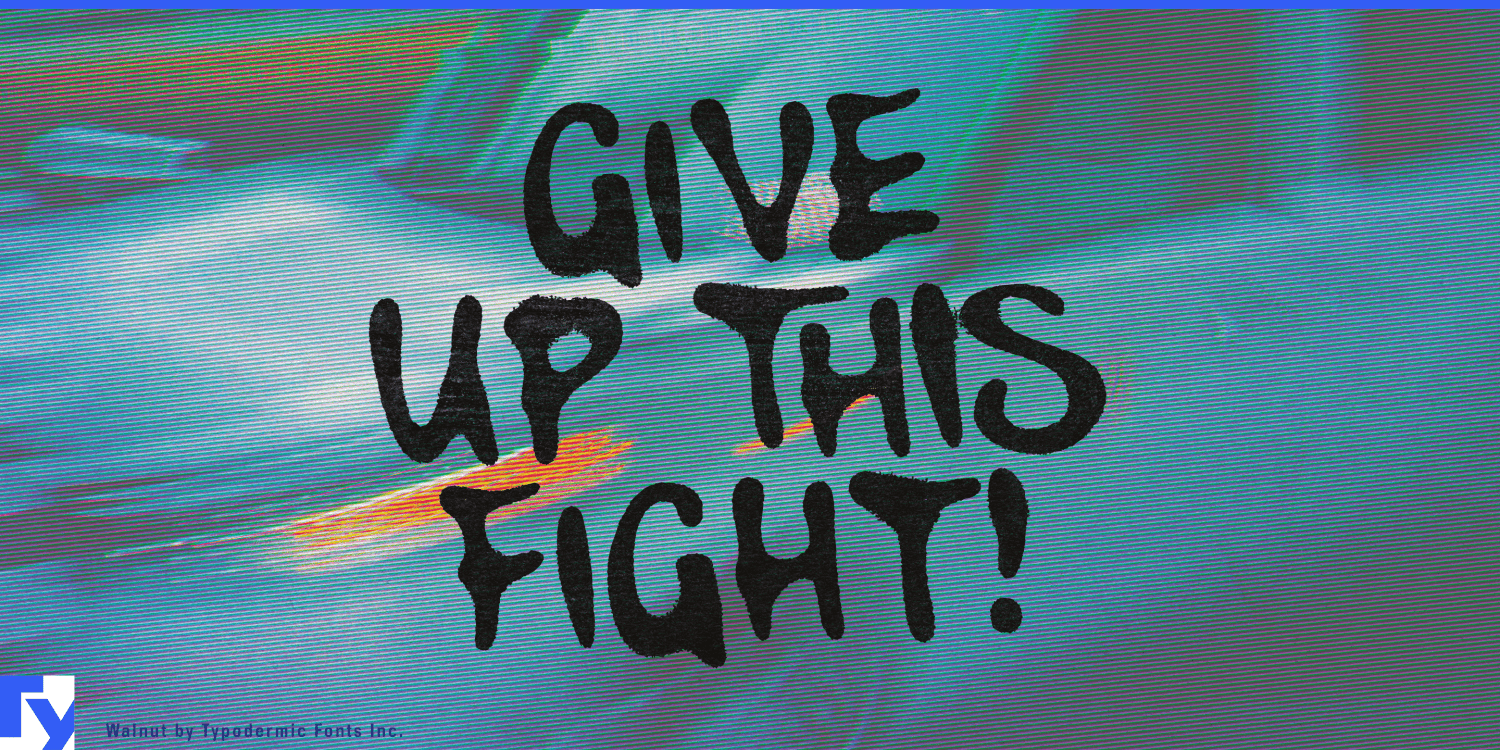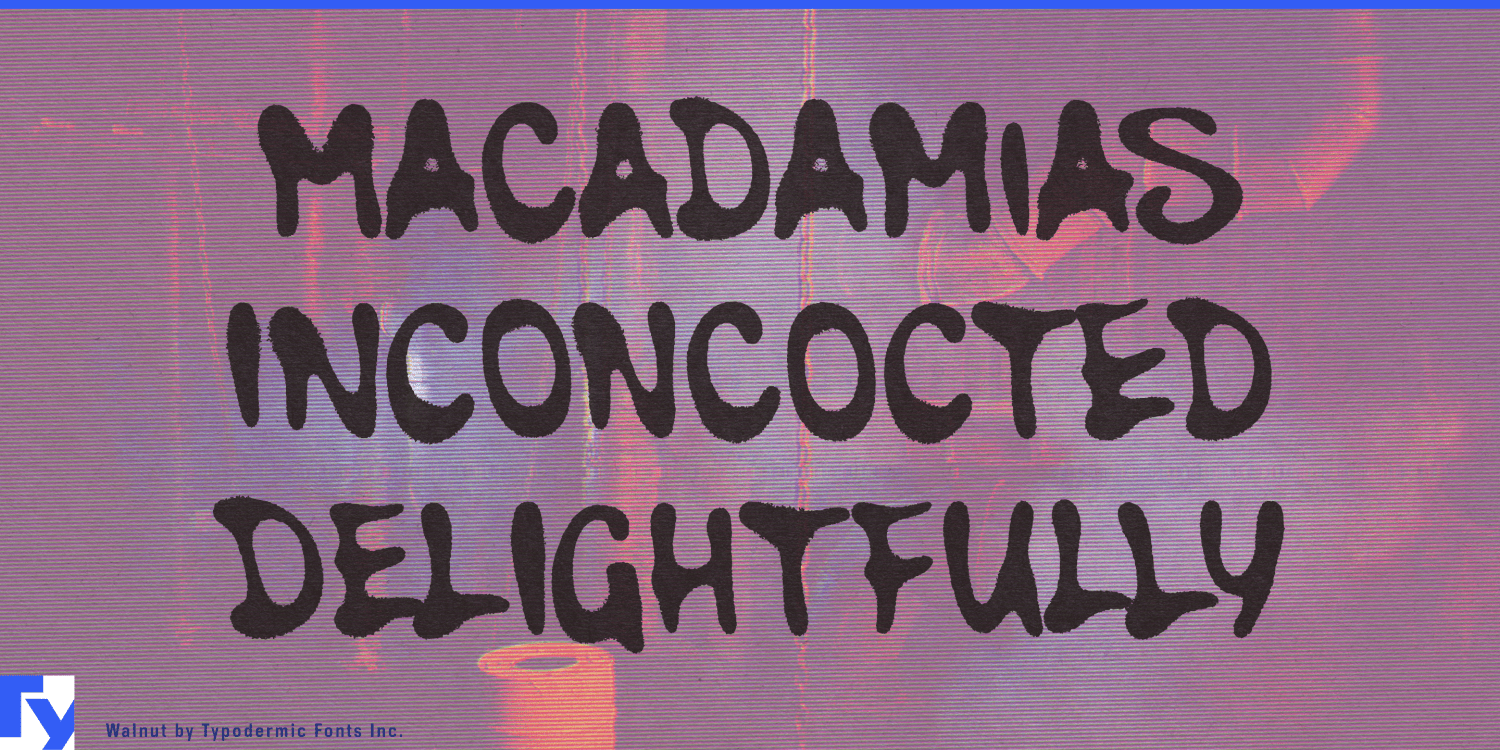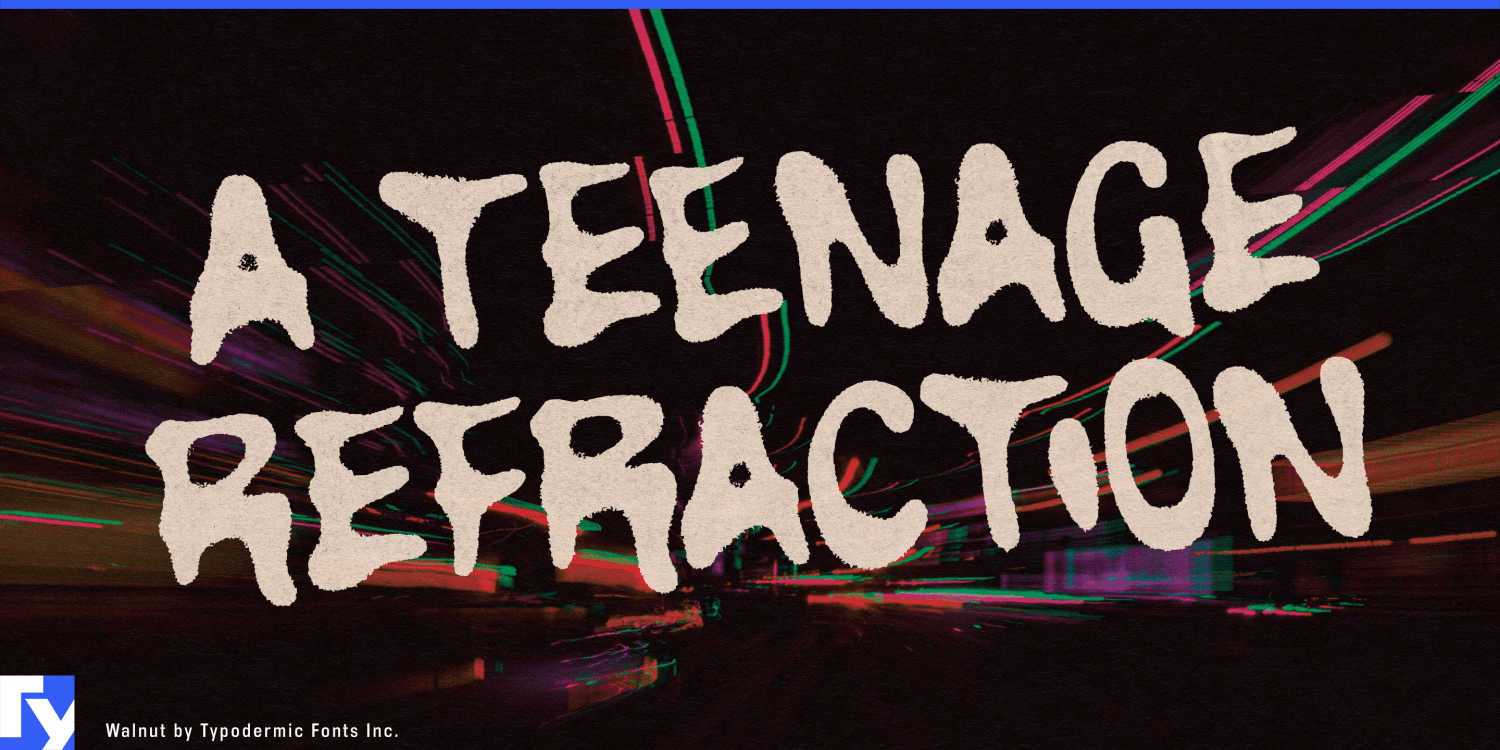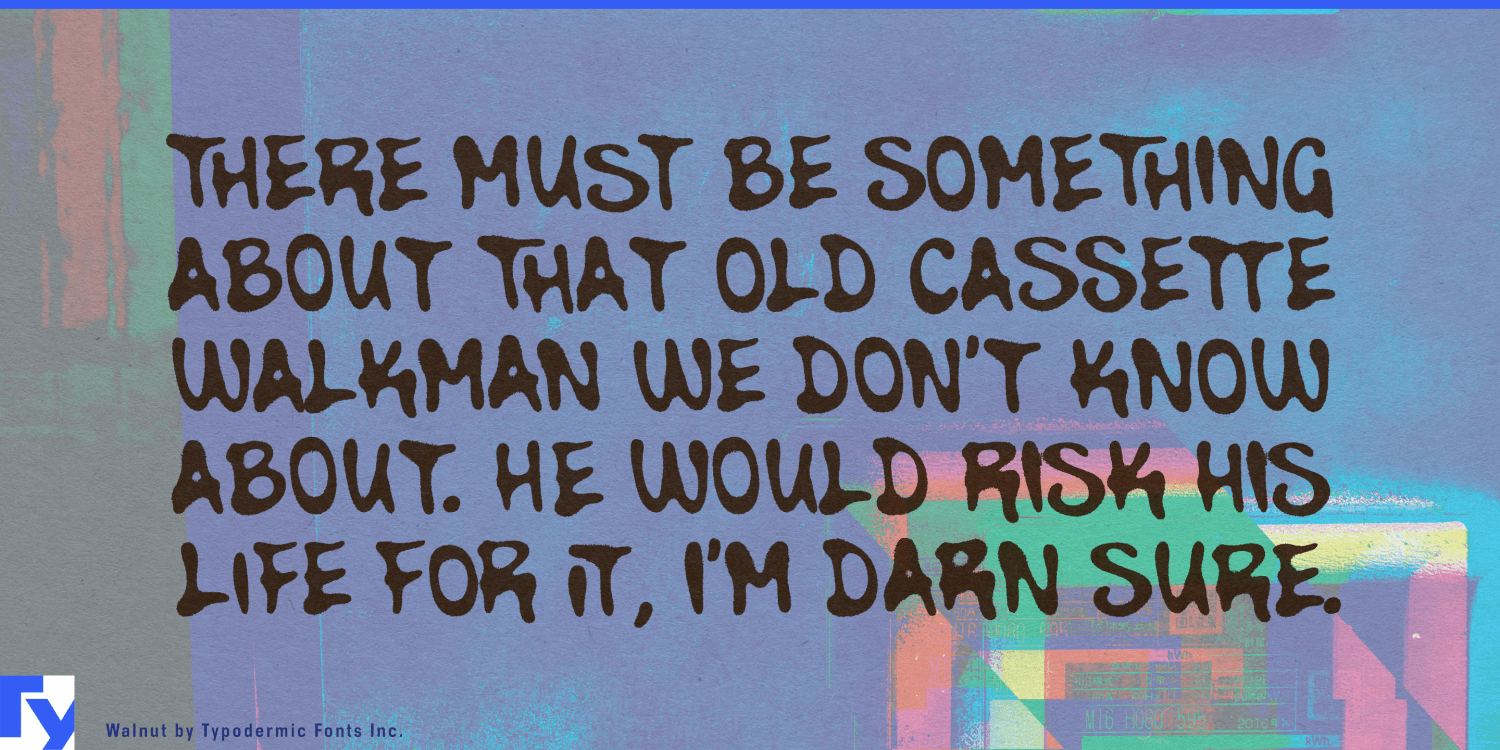
About Walnut
Walnut is rebellion in font form. This graffiti-inspired creation brings the raw energy of street art directly to your designs, transforming bland surfaces into vibrant canvases of expression. With its gritty, spray-painted aesthetic, Walnut injects an…